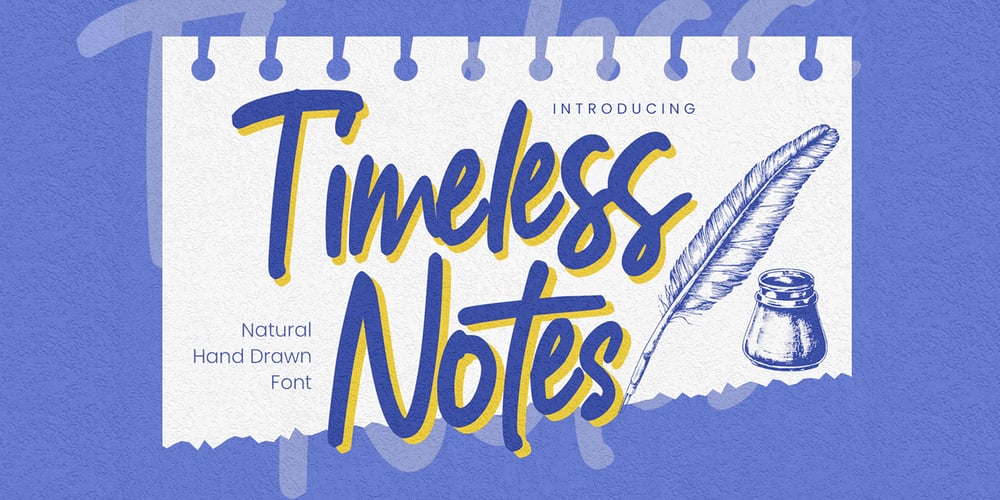
Timeless Notes Font Family was designed by Abdul Malik Wisnu, Anang Fibriyanto and published by Gassstype. Timeless Notes contains 1 styles and family package options. Here comes a New font,Introducing Timeless Notes is a Natural Hand Drawn Font with a natural style and dramatic movement.is a Authentic Font that is written casually and quickly. Every glyphs are made with Procreate. Then trace down into a vector format, and carefully crafted into a typeface.That is why Timeless Notes has cool,modern,authentic and strong characteristic more natural look. You can activate Ligature OpenType panel.